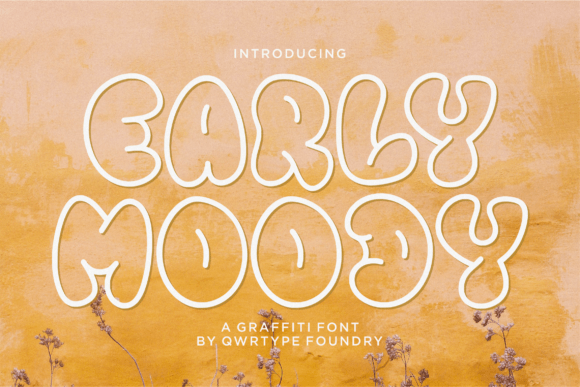
Introducing Early Moody Font: The Cute and Quirky Display Font You Need
Are you tired of using the same old fonts in your designs? Do you want to add a touch of joy and whimsy to your creative projects? Look no further than Early Moody Font, a cute and quirky display font that’s sure to make your designs stand out. In this article, we’ll take a closer look at Early Moody Font, its features, and how you can use it to elevate your designs.
What is Early Moody Font?
Early Moody Font is a display font that’s designed to add a playful and joyful touch to your designs. With its unique and quirky style, it’s perfect for creating eye-catching headlines, titles, and captions. The font is carefully crafted to convey a sense of fun and friendliness, making it ideal for designs that require a lighthearted and approachable tone.
Key Features of Early Moody Font
- Cute and Quirky Style: Early Moody Font has a unique and playful style that’s sure to grab attention.
- Display Font: Designed specifically for display purposes, Early Moody Font is perfect for headlines, titles, and captions.
- Easy to Read: Despite its quirky style, Early Moody Font is easy to read, making it perfect for designs that require a clear and concise message.
- Versatile: Early Moody Font can be used in a variety of designs, from digital media to print materials.
How to Use Early Moody Font in Your Designs
Early Moody Font is a versatile font that can be used in a variety of designs. Here are some ideas to get you started:
Design Ideas to Showcase Early Moody Font
- Social Media Graphics: Use Early Moody Font to create eye-catching social media graphics that grab attention.
- Logos and Branding: Add a playful touch to your logos and branding with Early Moody Font.
- Posters and Flyers: Use Early Moody Font to create bold and eye-catching posters and flyers.
- Digital Media: Early Moody Font can be used in digital media, such as videos, animations, and presentations.
Benefits of Using Early Moody Font
Using Early Moody Font in your designs comes with several benefits. Here are some of the advantages of using this cute and quirky display font:
Benefits of Early Moody Font
- Unique Style: Early Moody Font has a unique and quirky style that’s sure to make your designs stand out.
- Increased Engagement: The playful and joyful tone of Early Moody Font can help increase engagement and interaction with your designs.
- Flexibility: Early Moody Font can be used in a variety of designs, making it a versatile font to have in your collection.
Tips for Using Early Moody Font Effectively
To get the most out of Early Moody Font, here are some tips to keep in mind:
Tips for Using Early Moody Font
- Use it Sparingly: Use Early Moody Font sparingly to avoid overwhelming your designs.
- Pair it with Other Fonts: Pair Early Moody Font with other fonts to create a unique and visually appealing combination.
- Experiment with Colors: Experiment with different colors to find the perfect combination that works with Early Moody Font.
- Keep it Consistent: Use Early Moody Font consistently throughout your designs to create a cohesive look.
Early Moody Font is a cute and quirky display font that’s perfect for adding a playful and joyful touch to your designs. With its unique style, ease of use, and versatility, it’s an excellent addition to any design collection. By following the tips outlined in this article, you can use Early Moody Font effectively and create designs that stand out from the crowd.